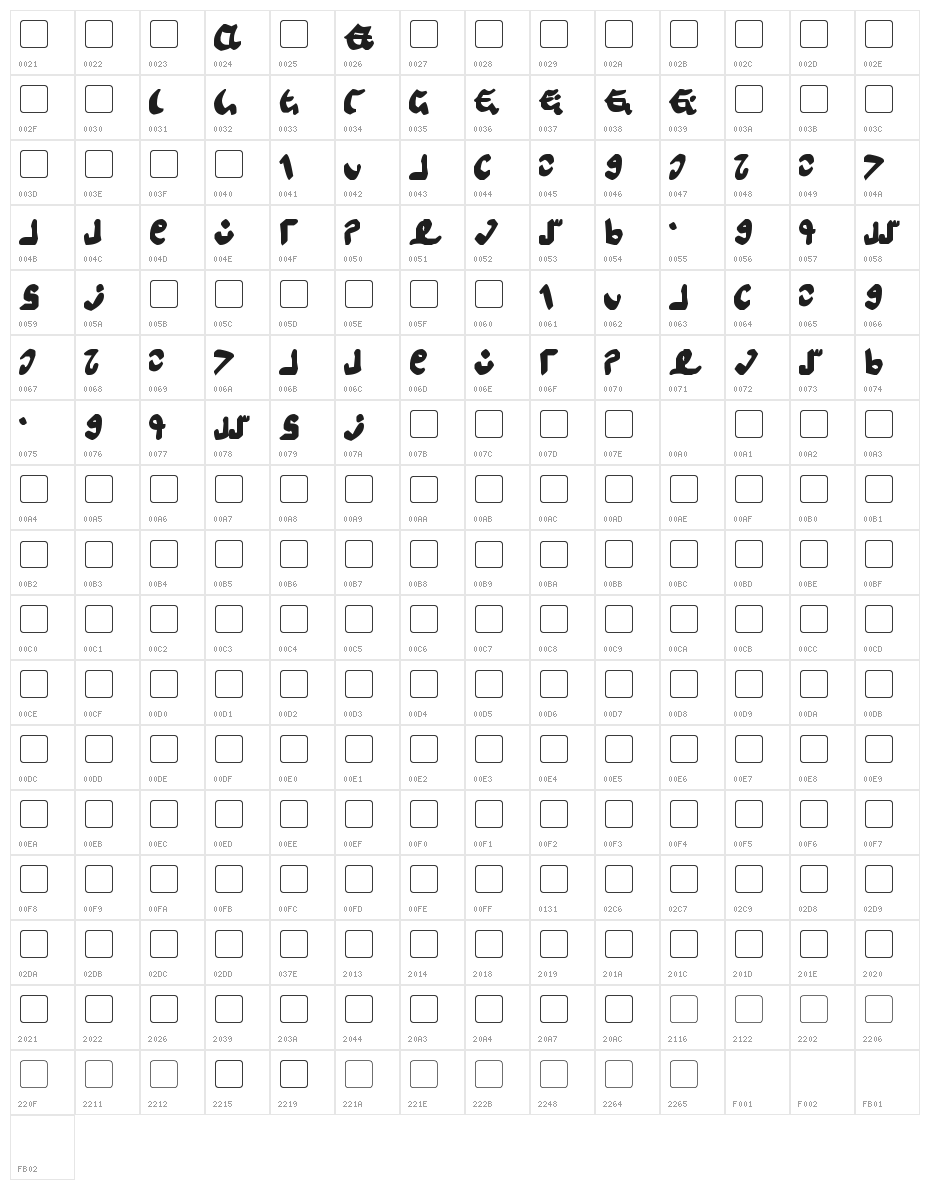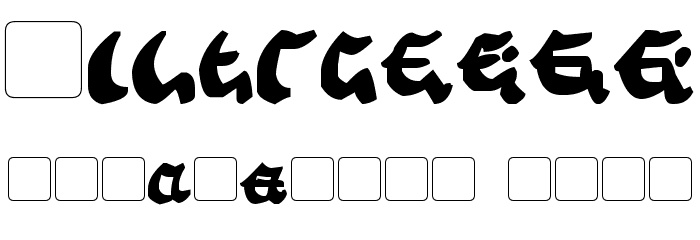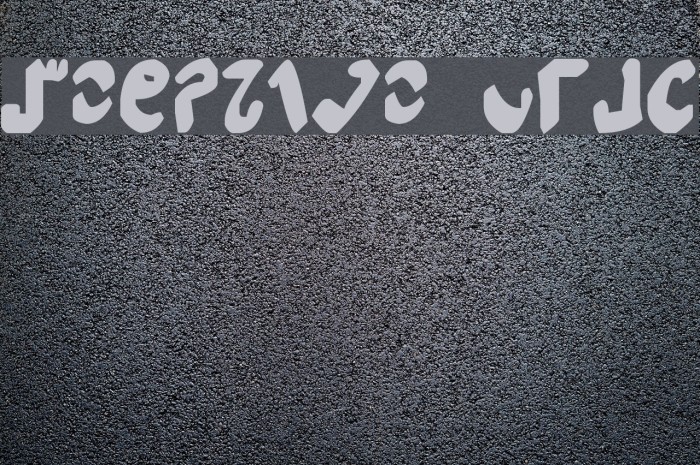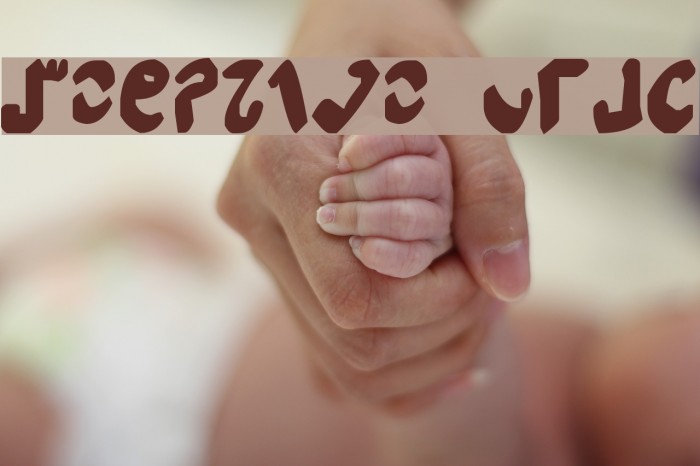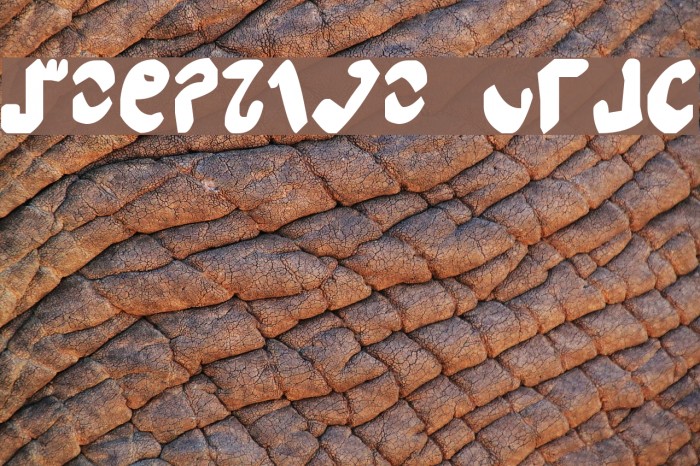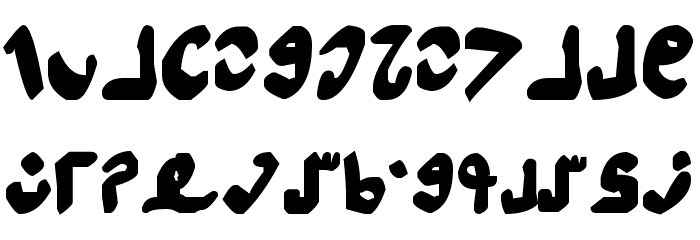
Semphari Bold Font
Semphari Bold Description
This font features a bold and dynamic design with a strong presence. The characters are thick and have a unique, almost abstract form, making them stand out with a distinct personality. The strokes are heavy and rounded, giving the font a playful yet assertive appearance. The overall style is decorative, with an emphasis on artistic expression. The characters are closely spaced, contributing to a compact and cohesive look. The font's high contrast in stroke thickness adds to its visual impact, making it suitable for attention-grabbing designs. Its unconventional shapes and bold weight make it ideal for creative projects that require a strong visual statement.
| Use Case | Logos, Posters, Artistic designs |
| Proposed Projects | Ideal for posters, logos, branding, and any project that requires a bold and artistic touch. |